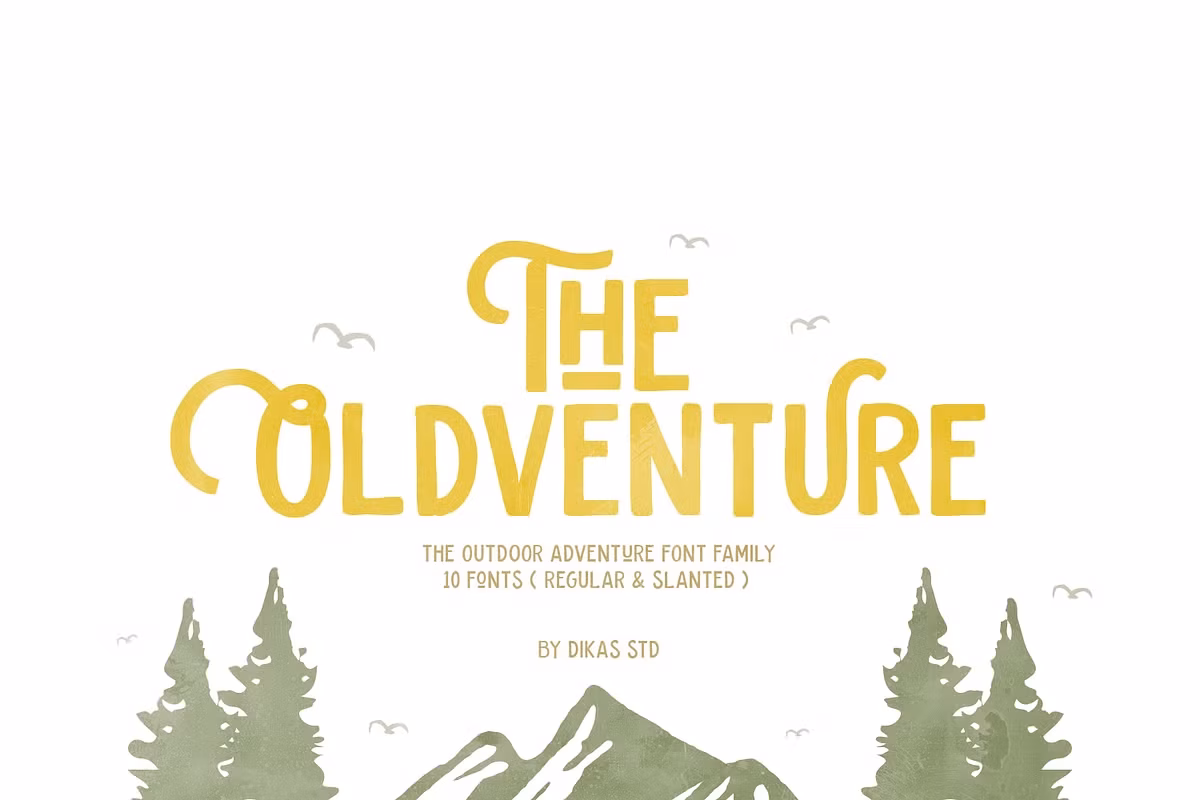
The Oldventure - 10 Fonts Free Download is a versatile font bundle that includes 10 different font styles, perfect for a variety of creative projects. Combining vintage, rustic, and modern designs, this collection is ideal for creating branding, logos, invitations, social media graphics, posters, and any project that needs a strong, timeless feel.
Each font in the bundle offers a unique look, from bold, adventurous styles to elegant, handwritten scripts, providing endless possibilities for customization and design flexibility. The Oldventure works especially well for outdoor, adventure, and retro-inspired projects, adding character and personality to your typography.
Elevate your designs with The Oldventure - 10 Fonts Free Download, and explore the diverse styles that can give your work a creative, vintage, and adventurous edge. Perfect for designers looking for a bold and versatile font bundle.